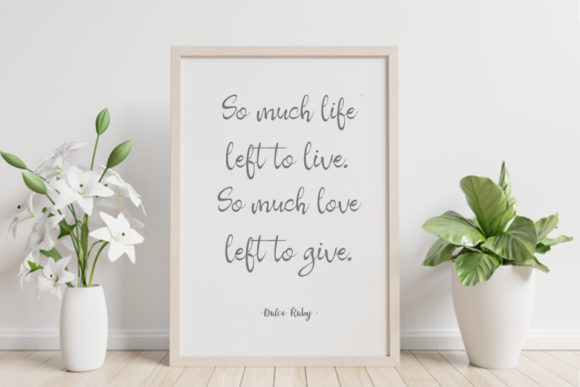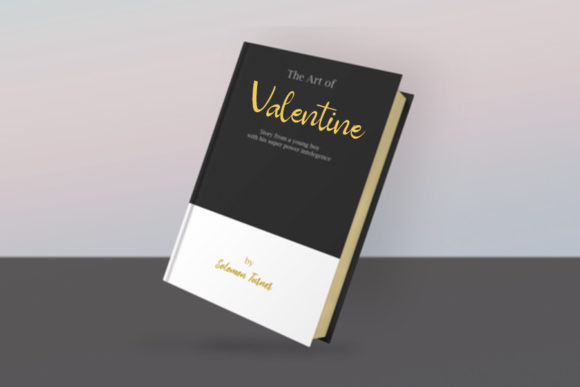
Madisson Font
db-ku.com - Script & Handwritten -- Madisson is a casual handwritten font, carefully designed to become a true favorite. It maintains its classy calligraphic influences while feeling contemporary and fresh. Fall in love with it and bring your projects to the highest levels!